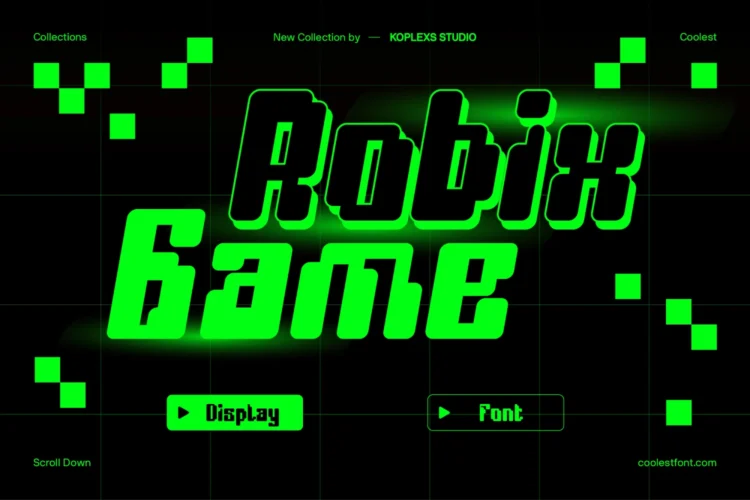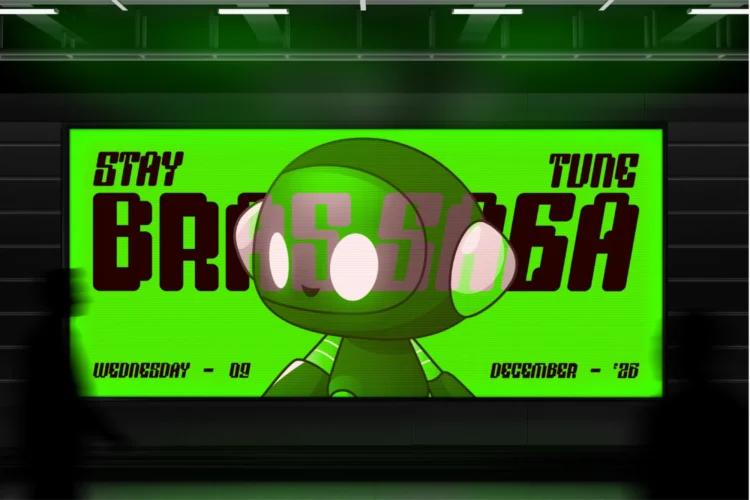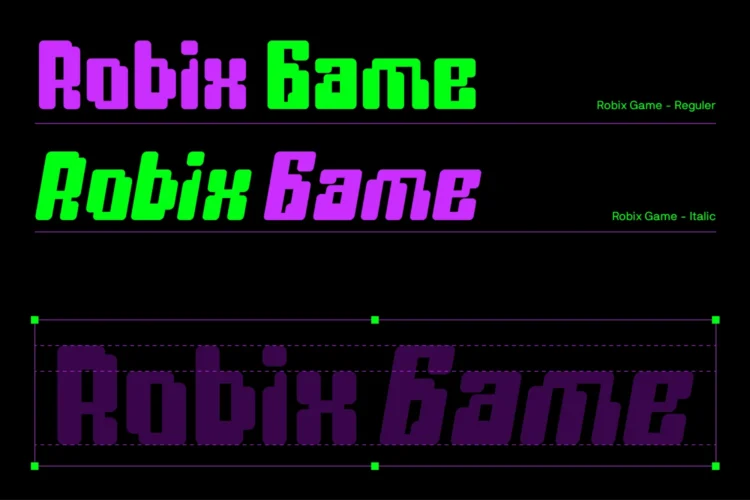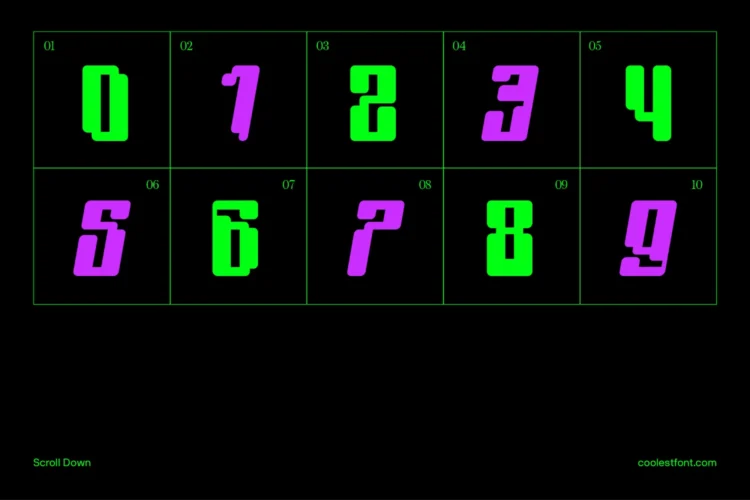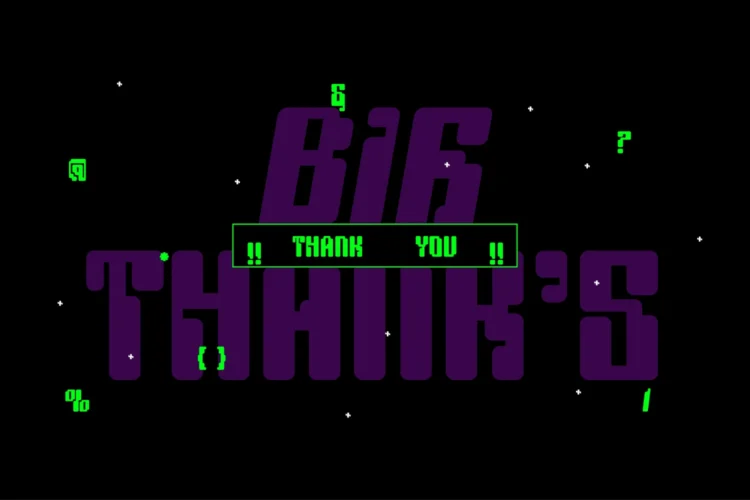
Robix Game Font Retro 8 Bit Cyberpunk Display Typeface for Video Games, Sci-Fi, and Digital Clock Designs
Robix Game Font by Koplexs Studio, a bold and futuristic display font that fuses retro gaming nostalgia with modern digital precision. This video game font is inspired by cyberpunk font styles, 8 bit fonts, and digital clock fonts, making it a perfect choice for any creative project that needs both edge and personality.
Robix Game Font delivers strong, pixelated letters with a soft geometric structure that reflects the spirit of classic retro arcade font designs. Every character feels energetic, bold, and readable, making it ideal for futuristic interfaces and video game typography.
This gaming typeface captures the magic of digital screens and time-based designs, drawing inspiration from time font and digital time clock font aesthetics. Whether you’re creating a sci-fi UI, RPG menu, or cyberpunk poster, this futuristic game font adapts perfectly to every style.
Robix Game Font is versatile and works beautifully for :
- Video game titles and splash screens
- RPG, fantasy, and sci-fi projects
- Gaming logos and streamer branding
- Futuristic digital dashboards and interfaces
- Clock-themed designs and digital time displays
- Cover font for books, comics, or movie titles
- Poster font for cyberpunk and retro themes
- UI and UX design for mobile or web games
Robix Game Font Highlights:
- Unique combination of pixel font and futuristic display font
- Available in Regular and Italic styles
- Sharp, clean, and legible pixelated letters
- Perfect mix of 8-bit nostalgia and sci-fi modernism
- Works beautifully as a headline font, logo font, or poster font
If you want a font that blends the nostalgia of retro game font with the clean energy of digital time clock font, Robix Game Font is the ultimate choice. It’s both futuristic and classic, powerful yet readable, and designed to make every headline or logo stand out in style.
Bring your world to life with a gaming typeface that’s built for creative players and visionary designers alike.